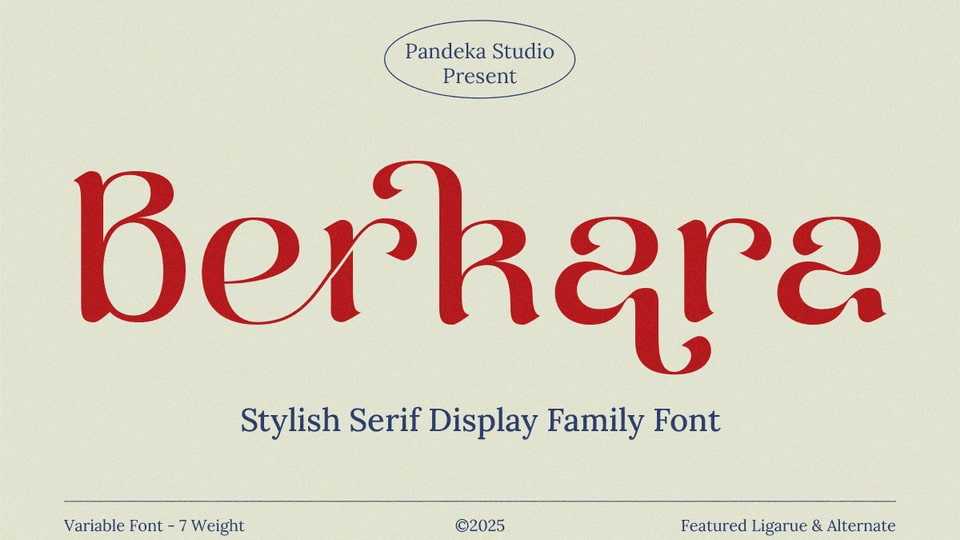
Download Berkara font, a vintage-inspired serif typeface with a modern and elegant twist. With 7 versatile styles, Berkara offers flexibility for a wide range of creative applications.